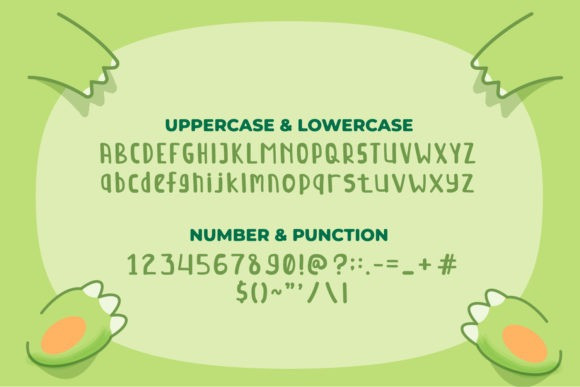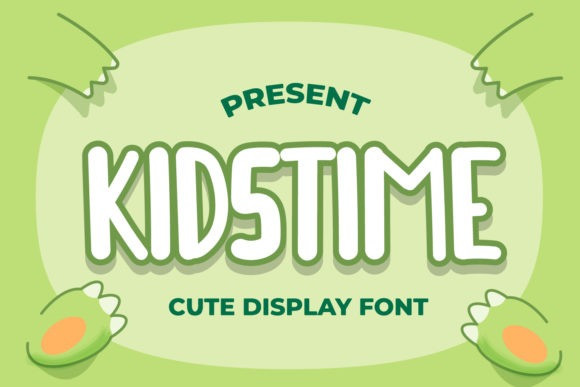
Kidstime Font
Kidstime Display Font is a cute and simple display font. This neat and versatile look will appeal to a wide range of crafty ideas, from letterheads and titles, to stationery.